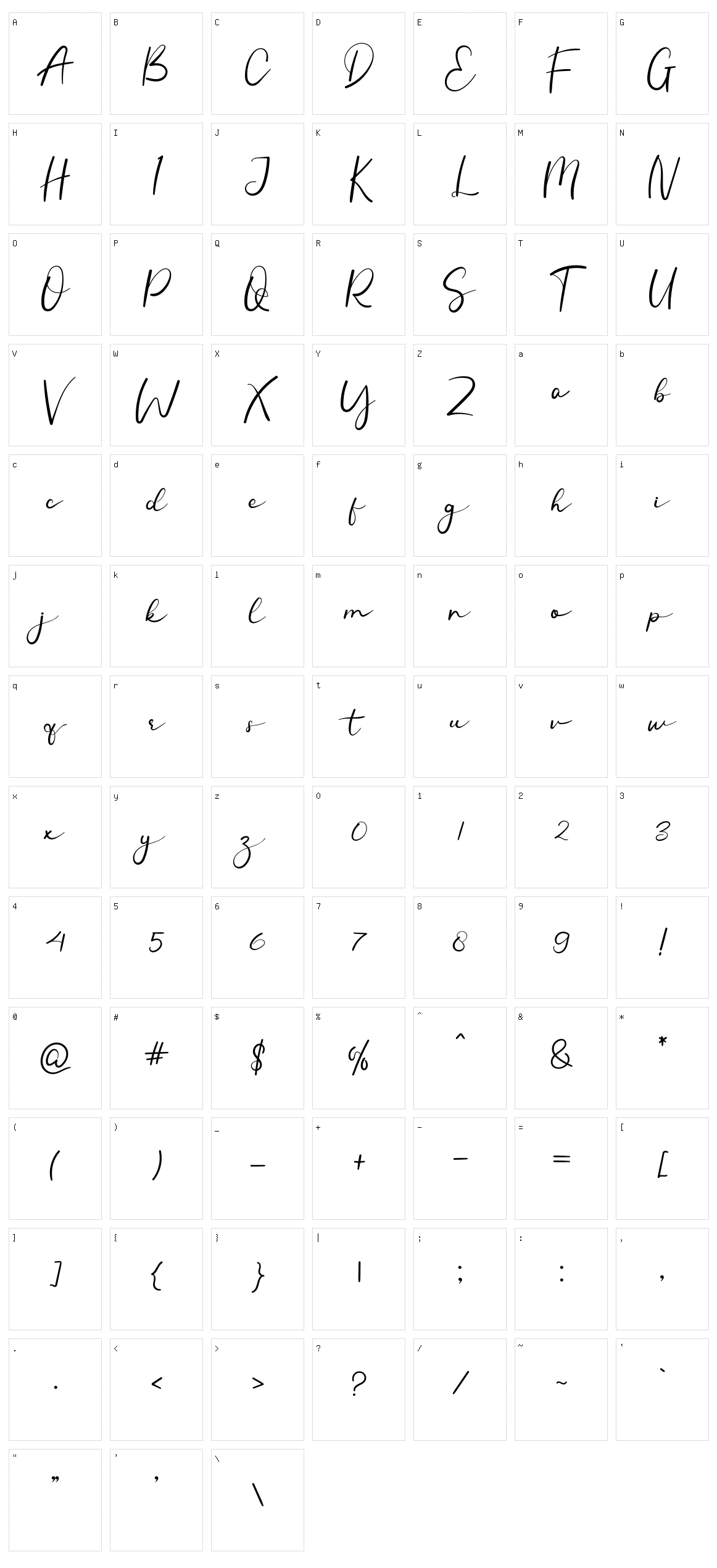
The free font Handmade Wonderland is carefully designed by Huston Vincen, showcasing a thoughtful balance of creativity and usability and falls under the Script font style. When you download the ZIP file, it contains only 71.23 KB of font files, making it lightweight and quick to download. Please review the license details below to understand permitted usage and distribution rights. If license information is not available, we recommend using this font for personal projects only or contacting the author directly for commercial usage permissions.